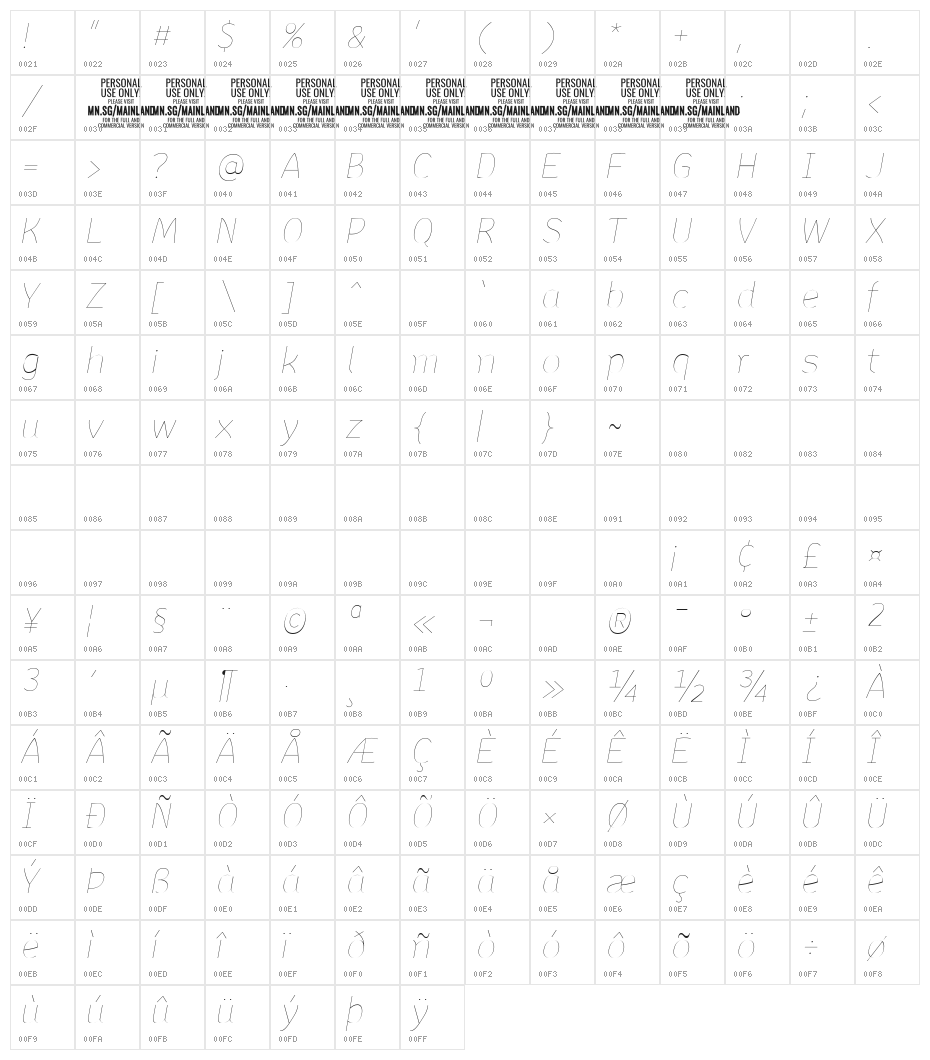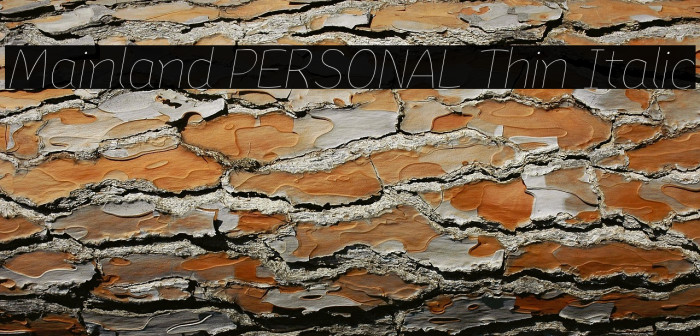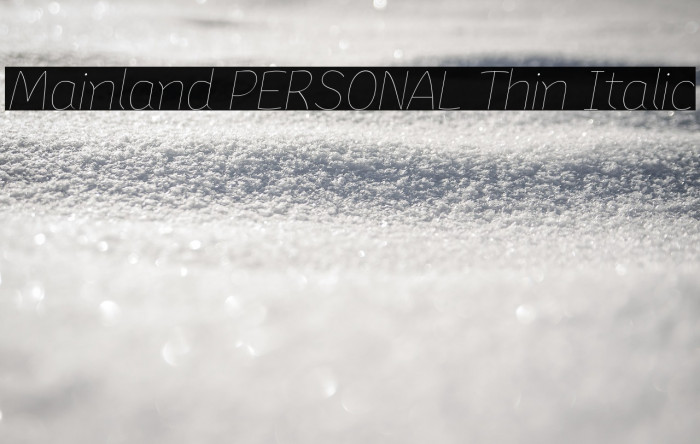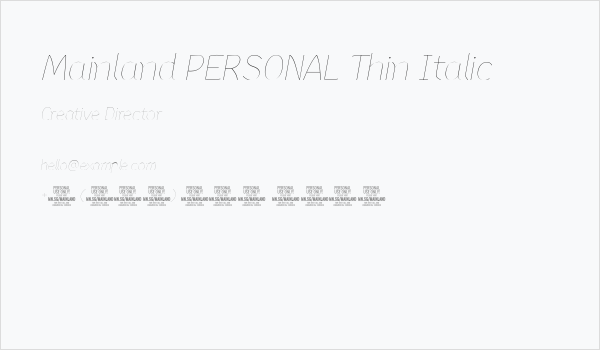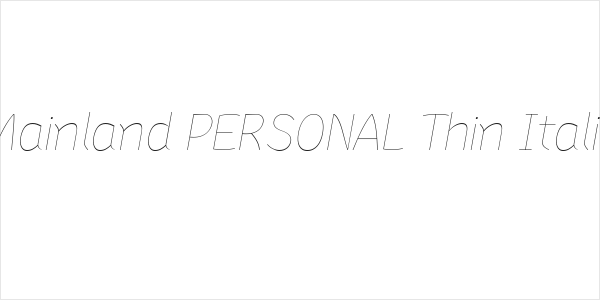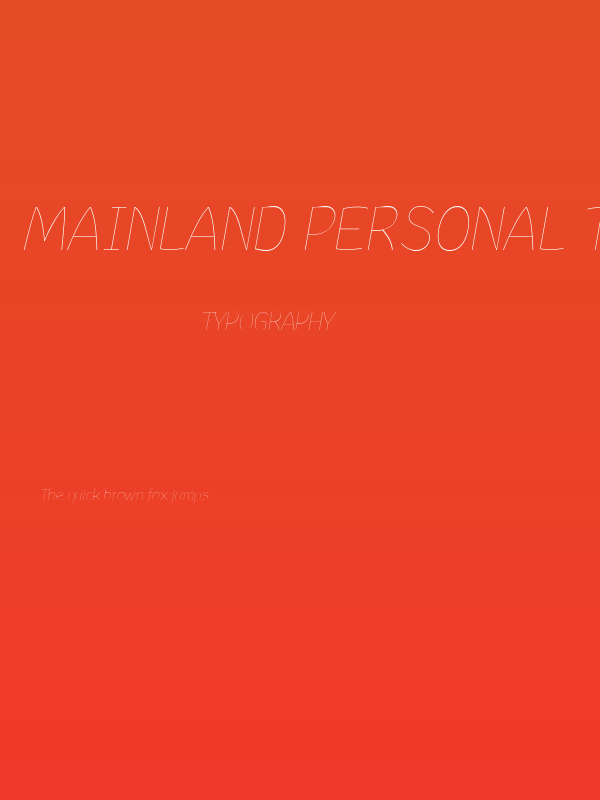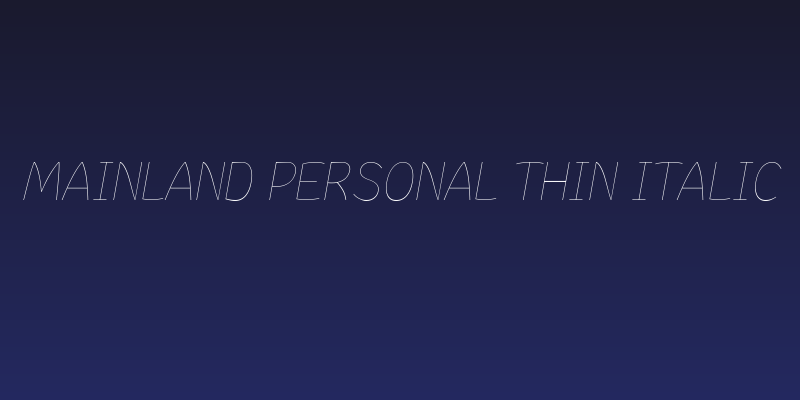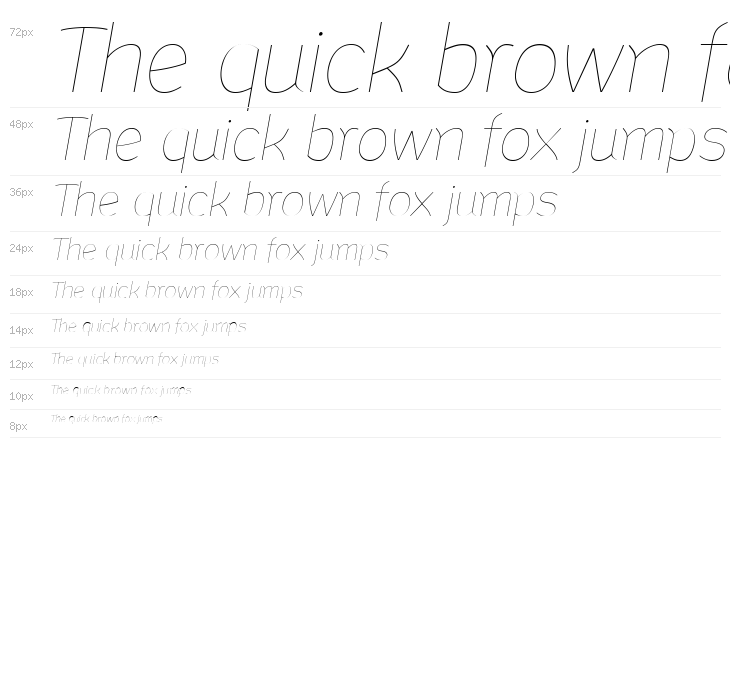
Mainland PERSONAL Thin Italic Font
Mainland PERSONAL Thin Italic Description
This font features a sleek, minimalist design with a thin, elegant stroke that gives it a modern and sophisticated appearance. The italic style adds a dynamic and fluid motion to the characters, enhancing its contemporary feel. Each letter is crafted with precision, maintaining a consistent slant that contributes to its cohesive look. The font's thin weight and clean lines make it ideal for projects that require a subtle yet stylish touch. Its simplicity and elegance make it versatile for various design applications.
| Proposed Projects | Ideal for fashion magazines, modern branding, elegant invitations, and minimalist website designs. |